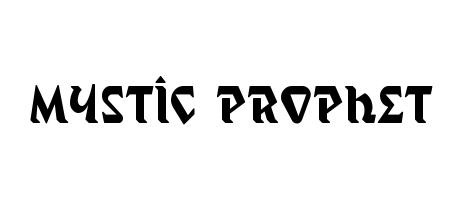
Mystic Prophet
Mystic Prophet is a bold, blackletter-inspired typeface. Its angular serifs and thick strokes give it a medieval, mystical feel. The letters are tall and tightly spaced, lending an air of authority and mystery. It's a font perfect for titles, logos, or any project needing a touch of dark fantasy. The variations in letterforms add a unique and striking character.